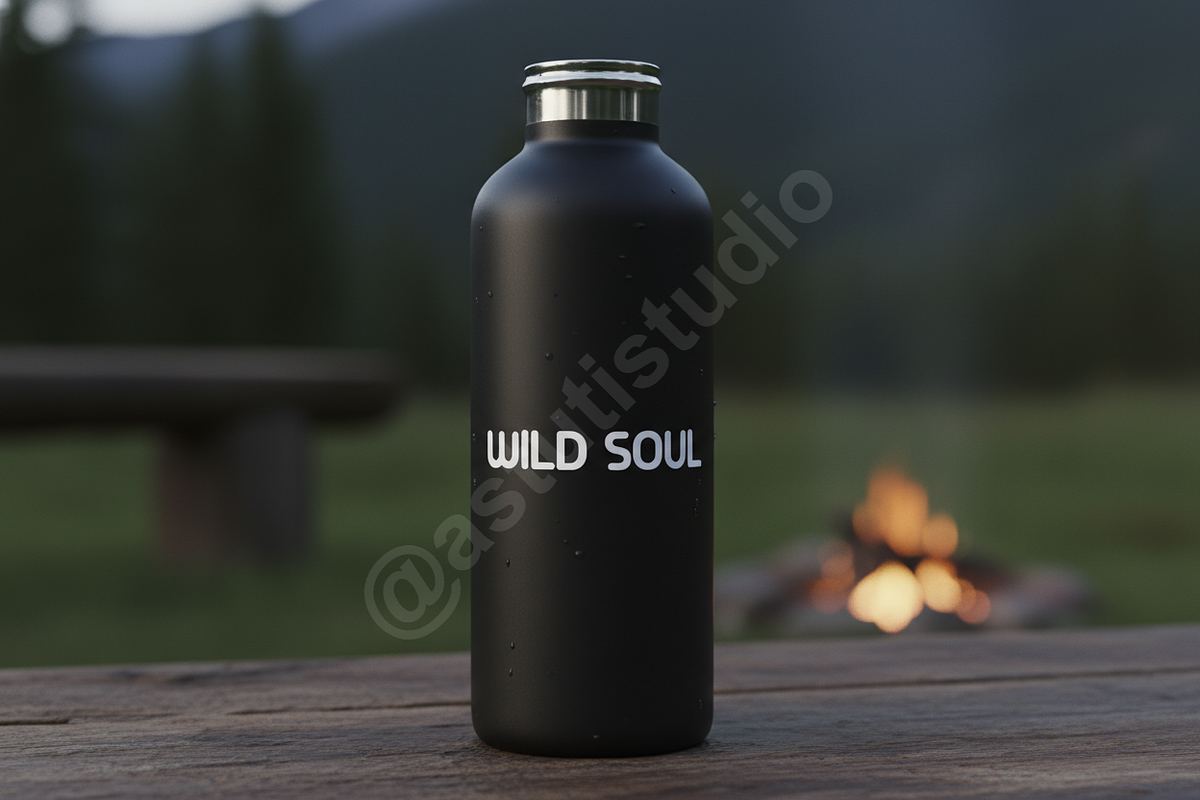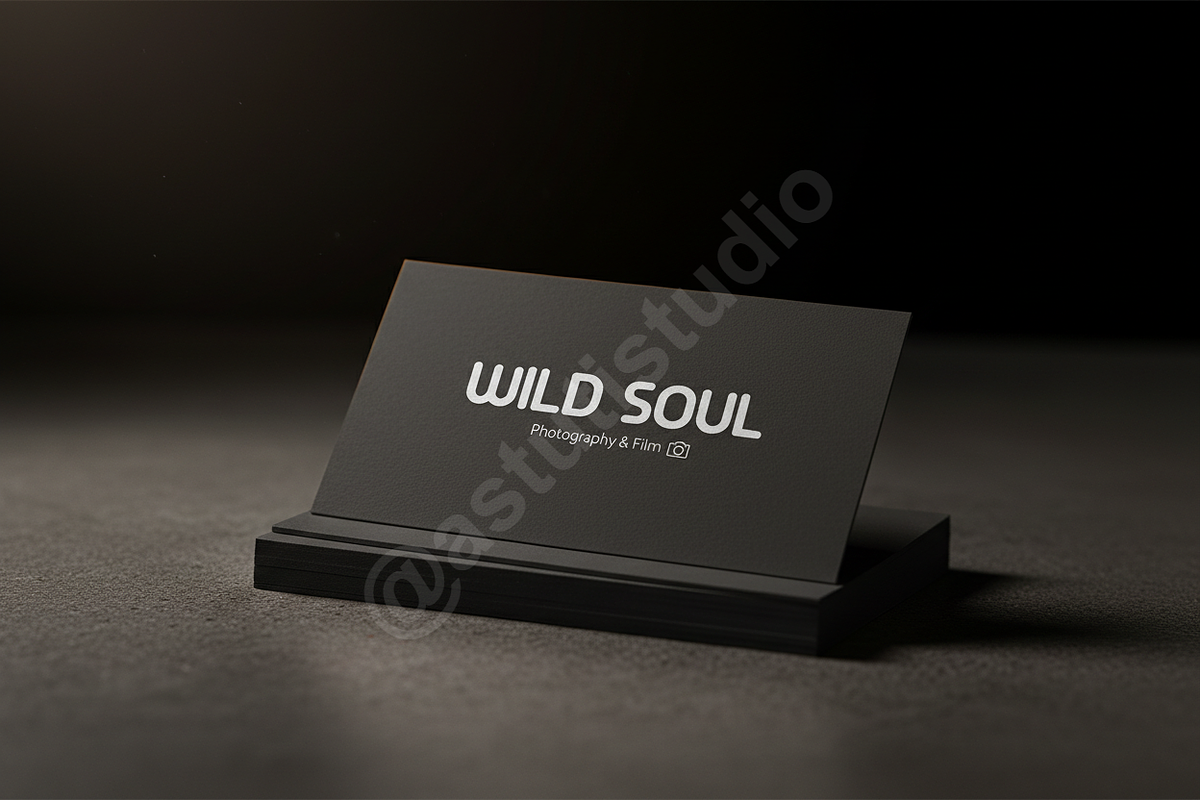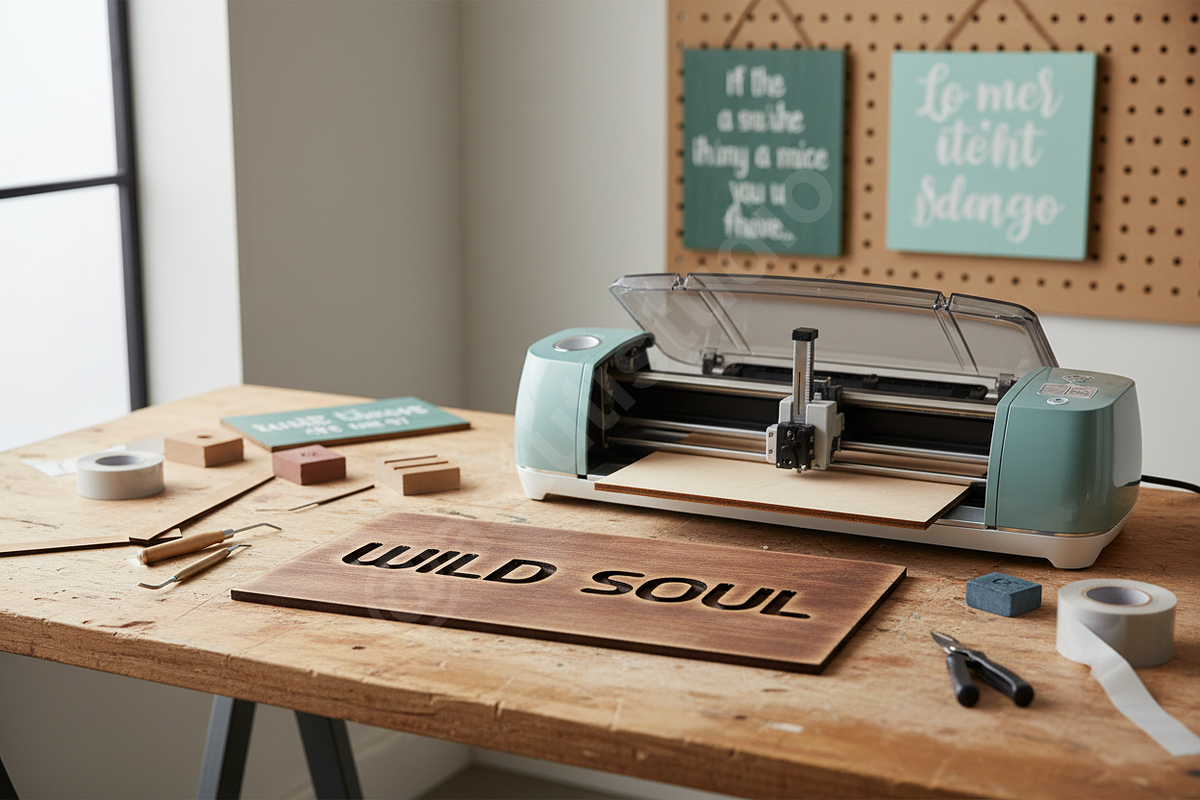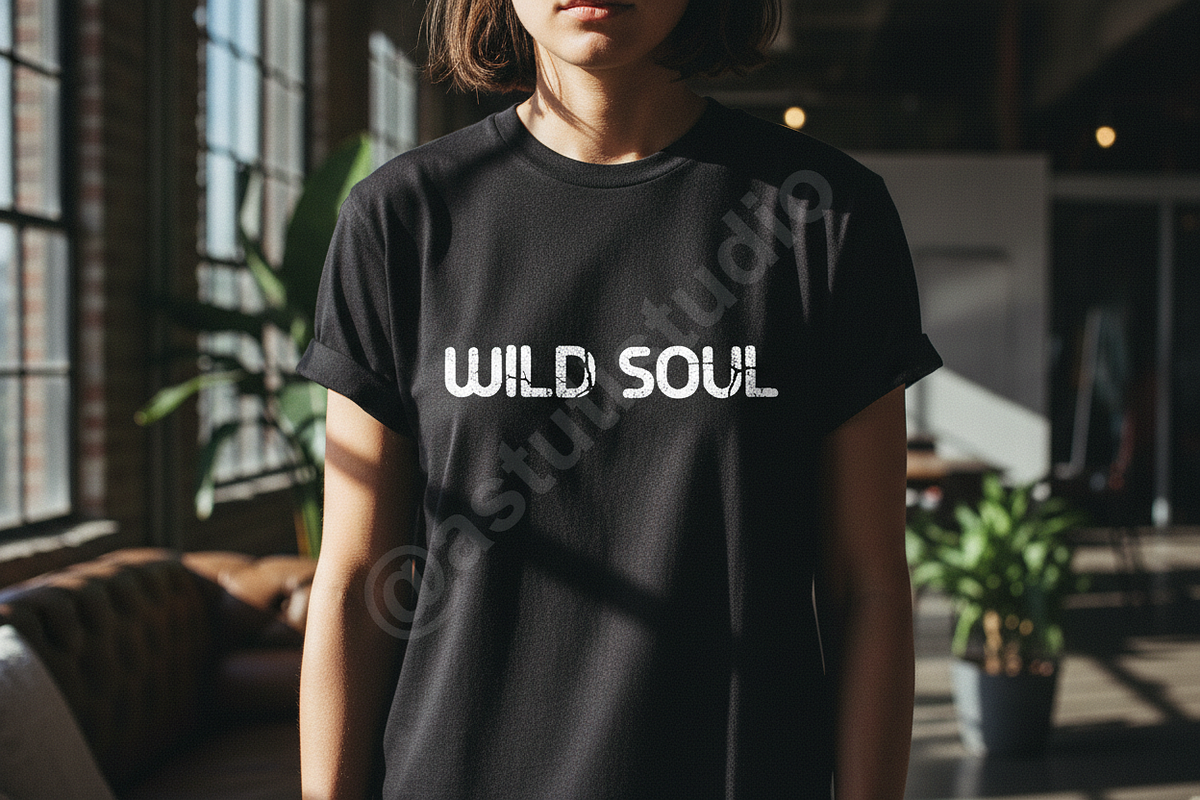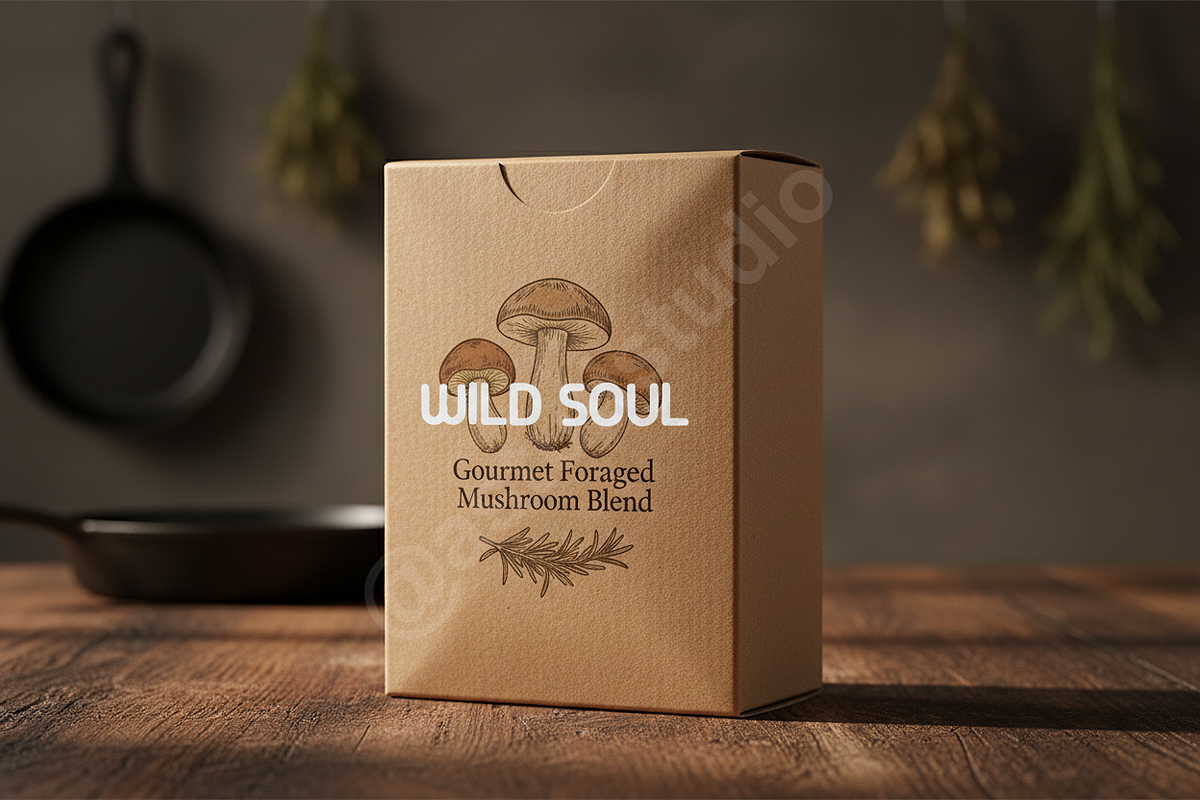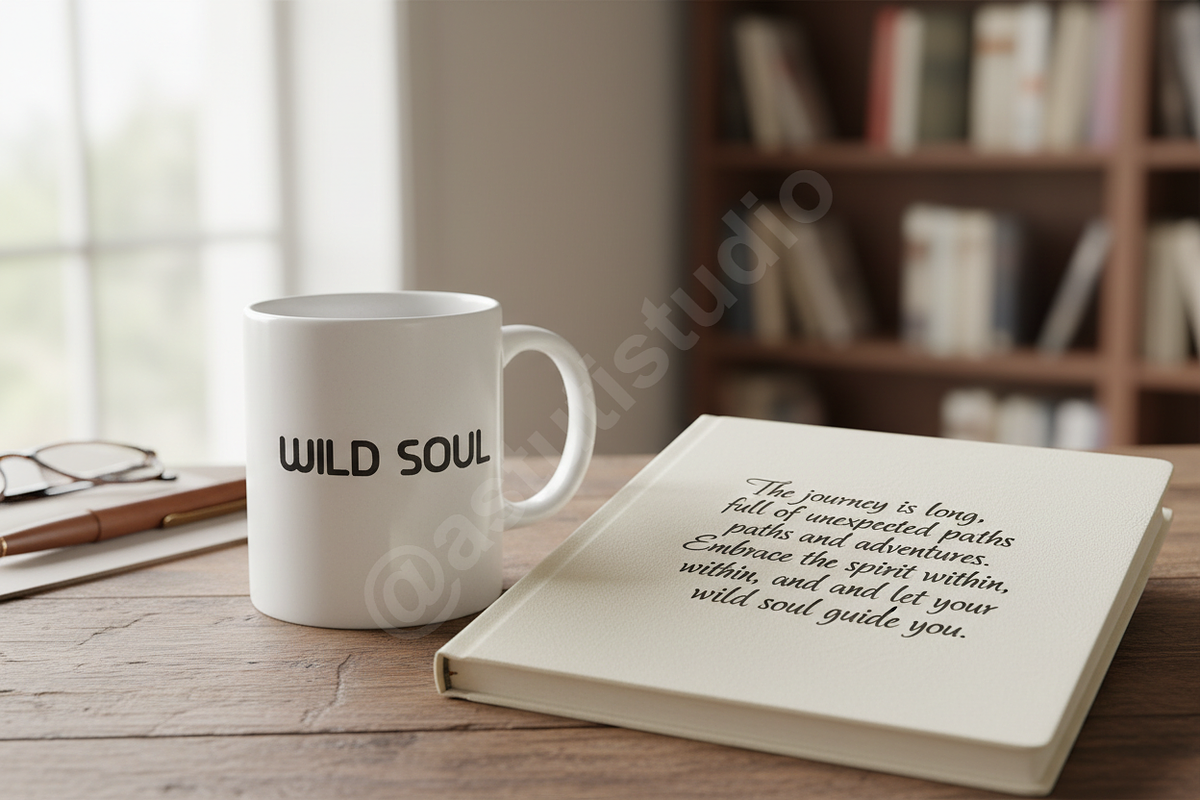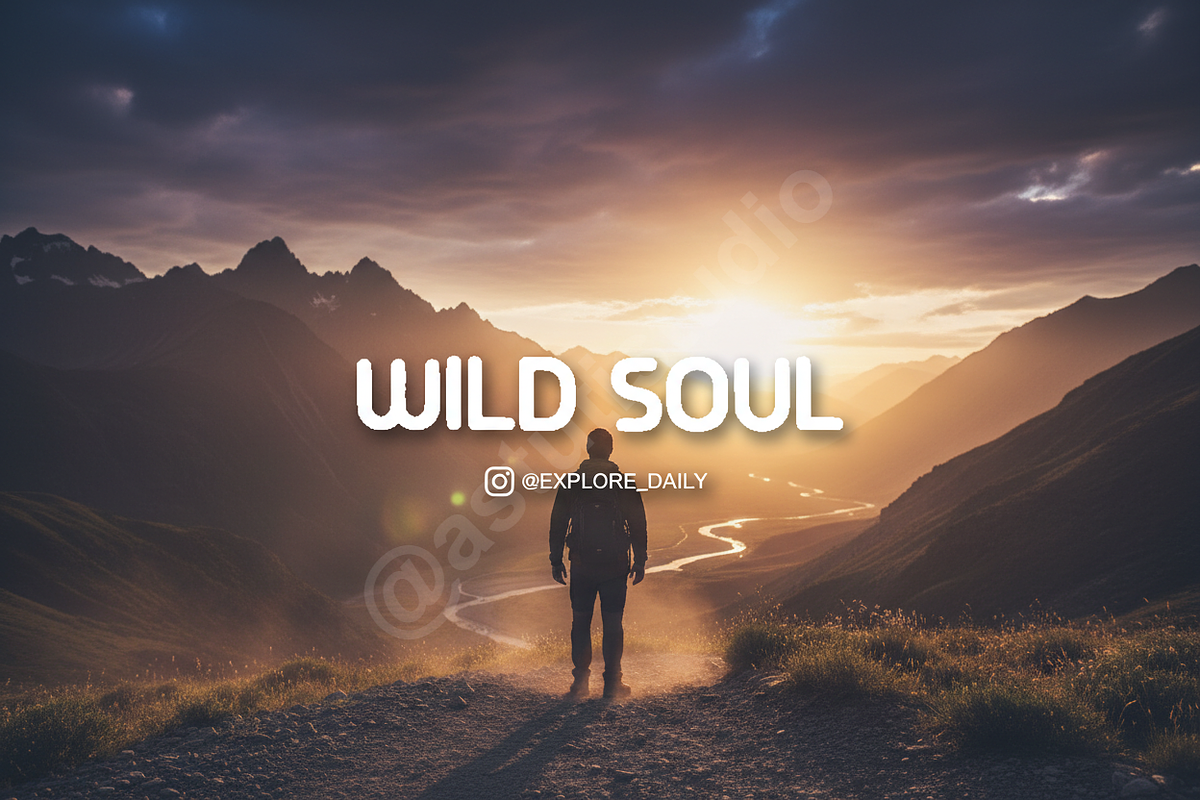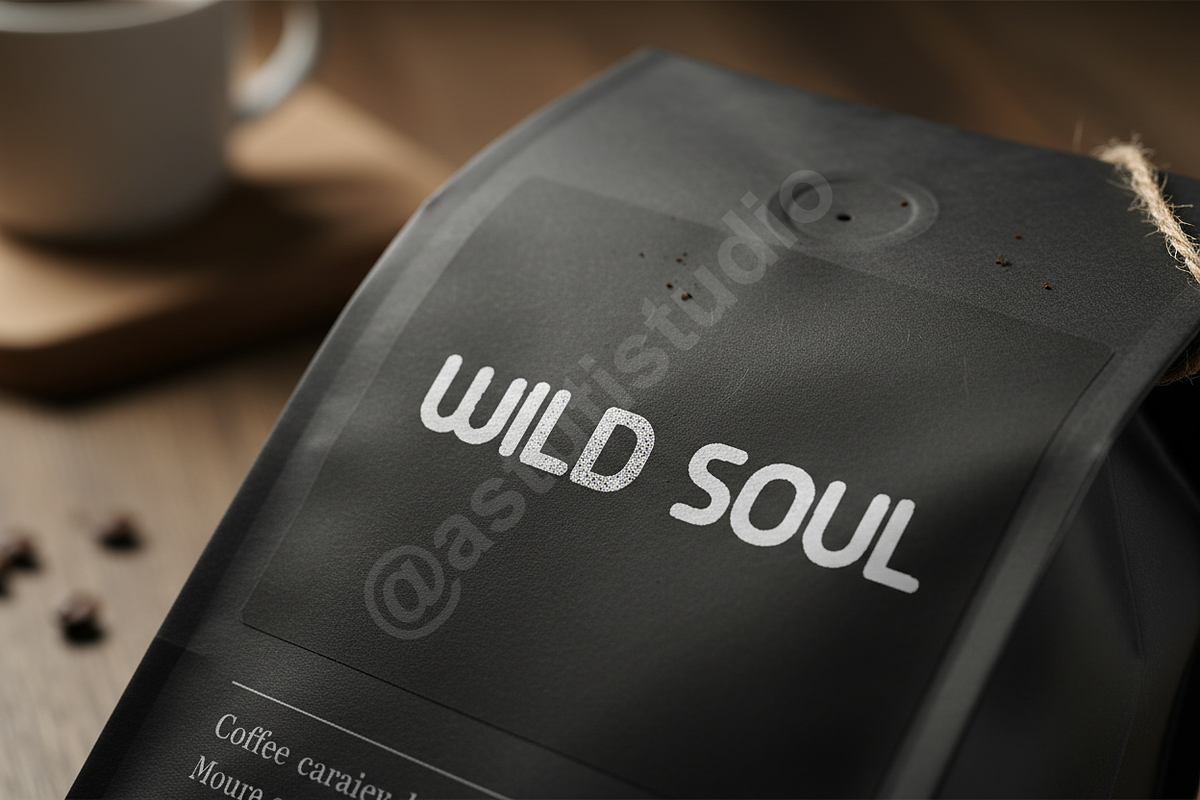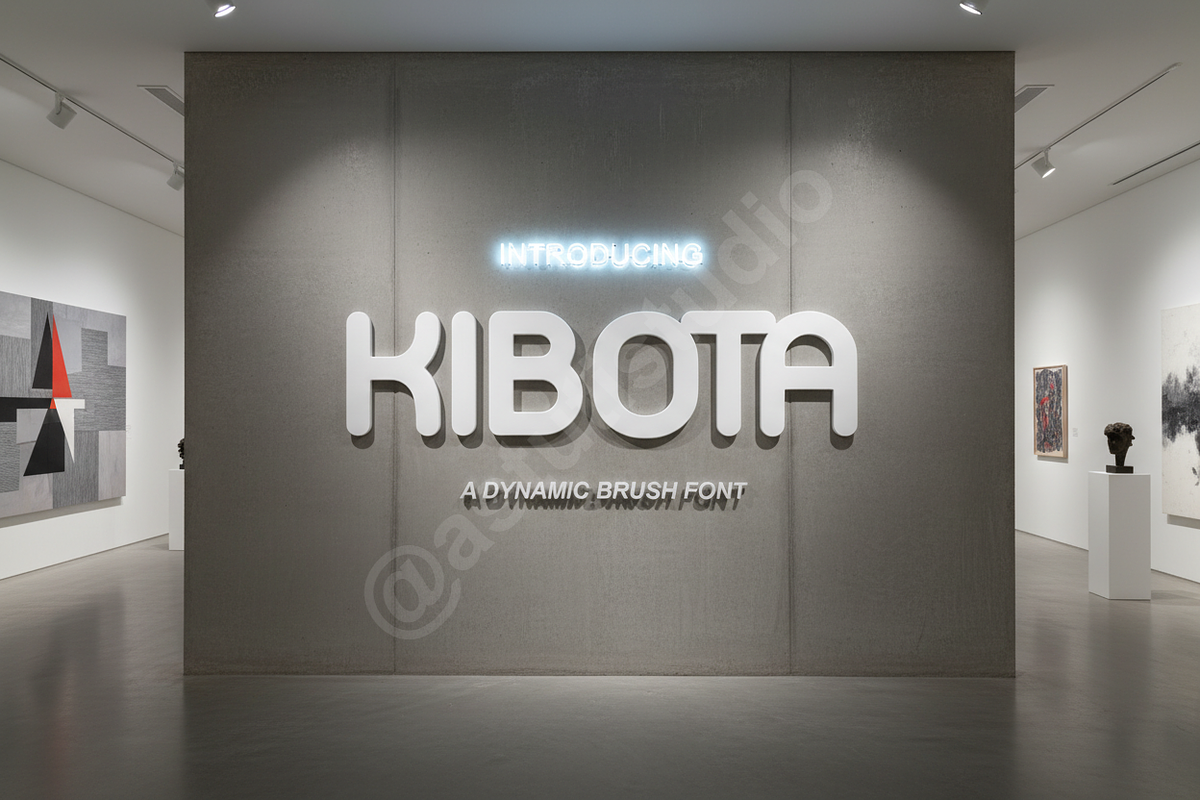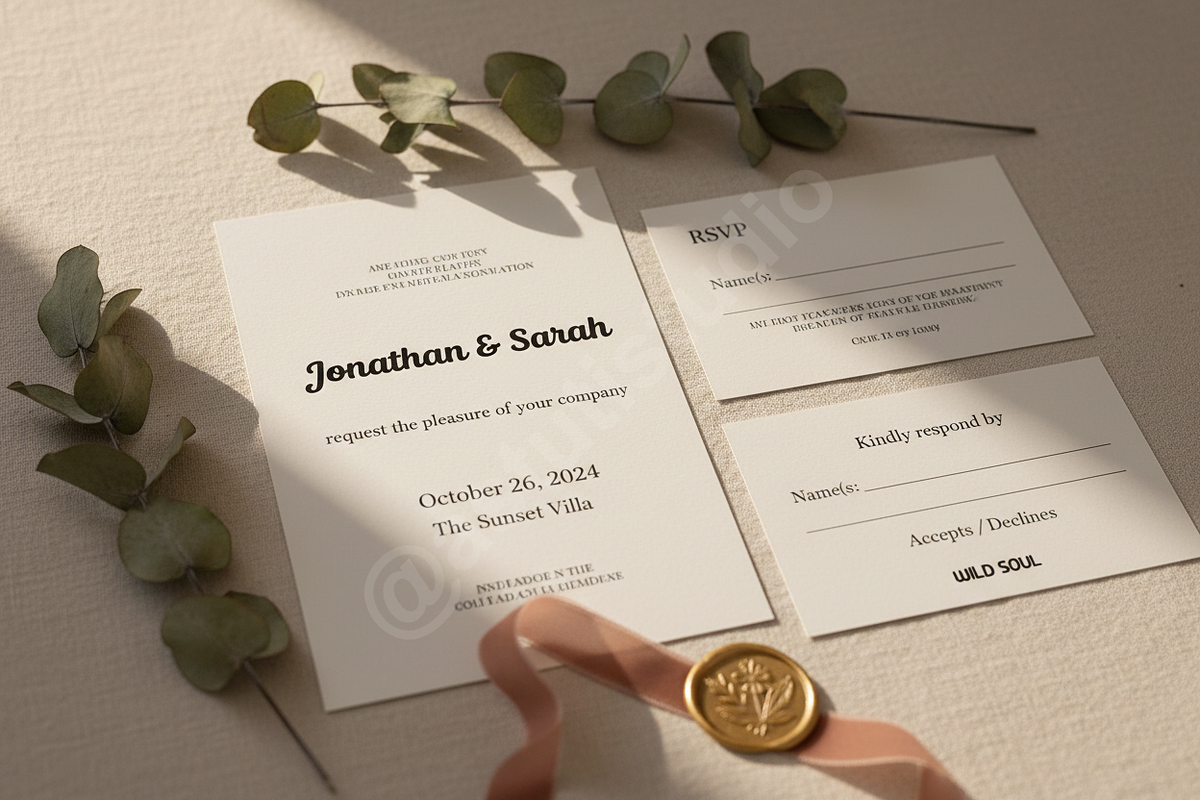
Kibota - Elegant Modern Serif Typefa
KIBOTA SERIF TYPEFACE
Elevate your creative projects with Kibota, a sophisticated serif font crafted for high-end aesthetics. Balancing classic proportions with a contemporary edge, Kibota is designed to bring an air of luxury and clarity to your visual identity. Whether you are crafting a brand for a high-fashion house or designing a minimalist editorial layout, this typeface provides the versatility and elegance required for premium results. It is the perfect choice for luxury branding, editorial design, and high-impact social media content.
DESIGN FEATURES
- Refined, high-contrast serif strokes
- Optimized for legibility in both display and body text
- Unique character alternates and ligatures
- Comprehensive multilingual support
- Clean, professional aesthetic suitable for luxury sectors
- Full Uppercase and Lowercase Alphabet
- Numbers, Punctuation, and Special Characters
- Specialized Decorative Ligatures